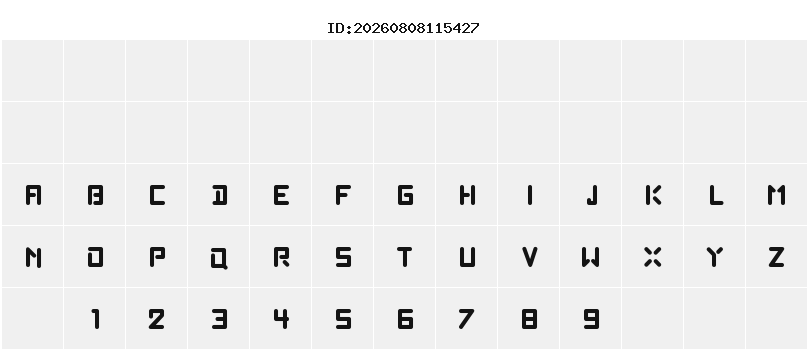
Poprock Preview
• Font Name: Poprock
• Full Font Name: Poprock
• PostScript Name: Poprock
About Poprock.ttf
Poprock.ttf is a modern, elegant sans-serif font designed for ultimate readability and visual harmony. Perfect for branding, headlines, web design, and print materials.